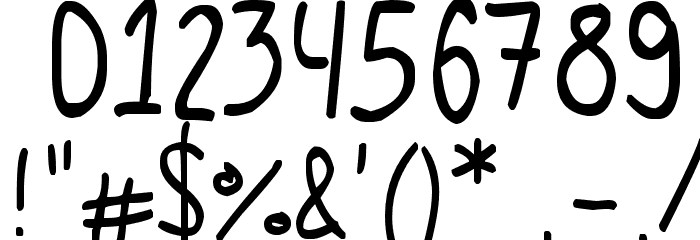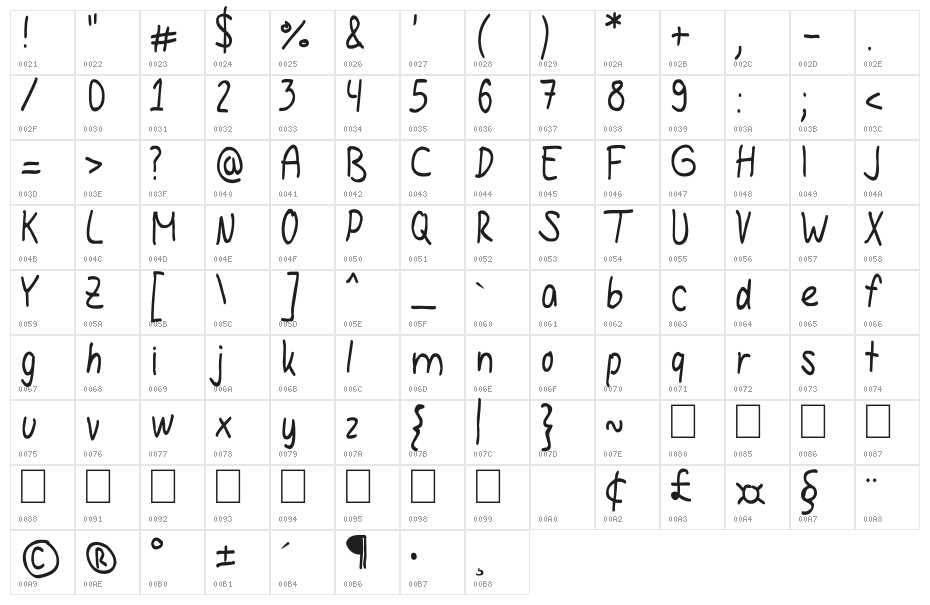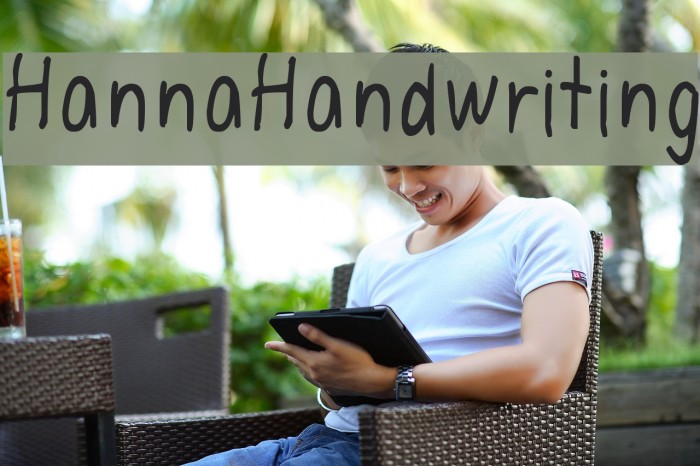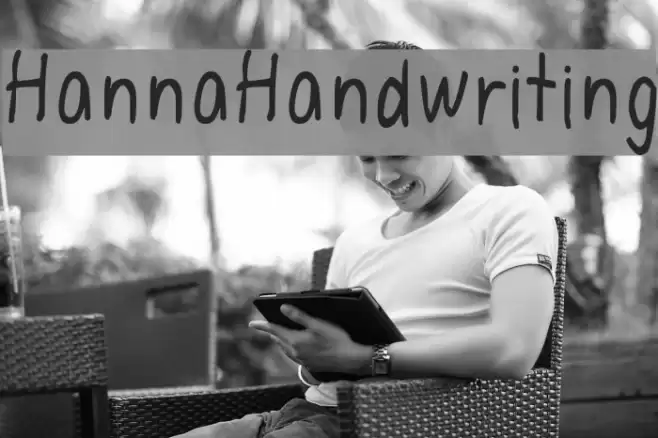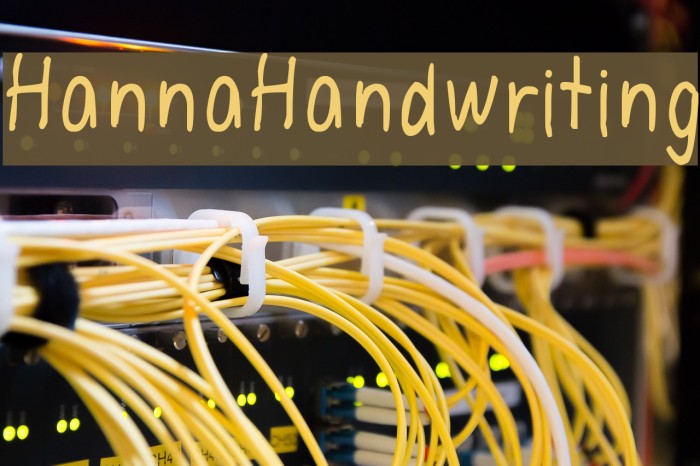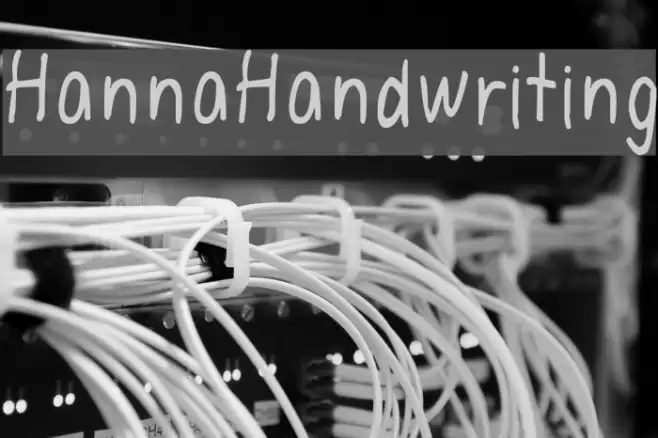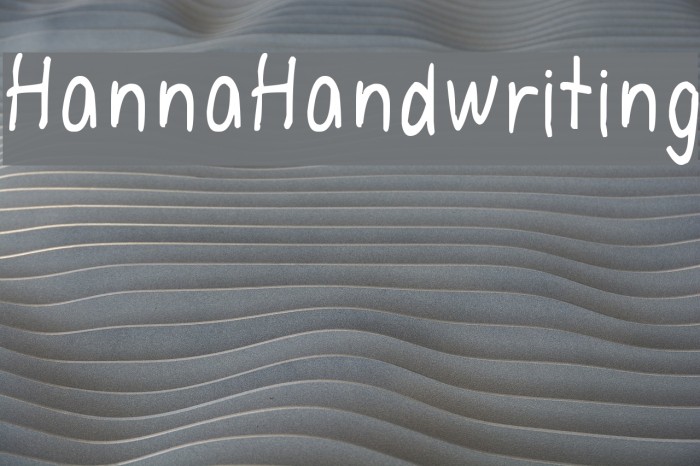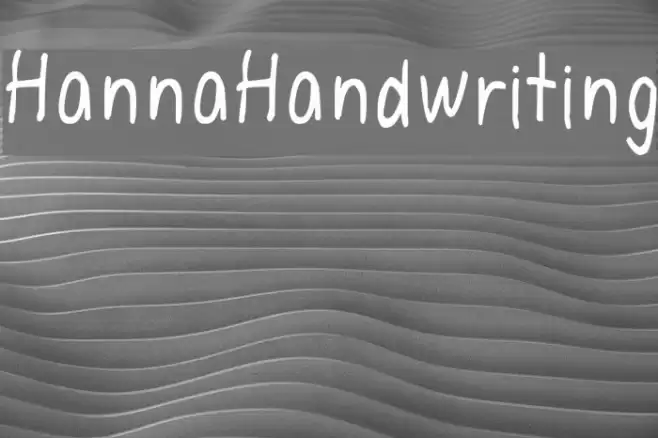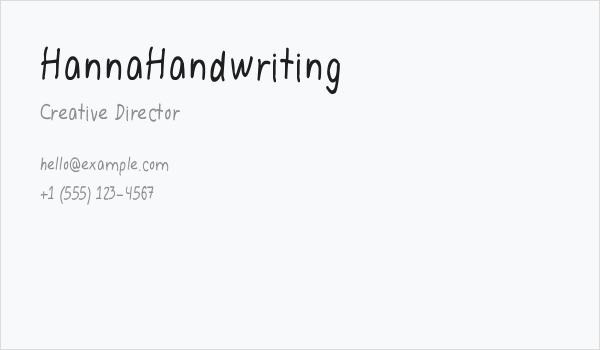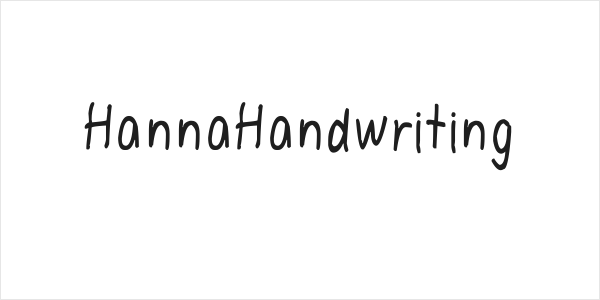
HannaHandwriting Font
HannaHandwriting Description
This font features a playful and casual handwritten style, characterized by its smooth, flowing lines and slightly irregular shapes that mimic natural handwriting. The uppercase and lowercase letters are well-balanced, with a consistent stroke width that gives a uniform appearance. The numerals and special characters maintain the same informal aesthetic, making the font versatile for various creative applications. Its legibility is enhanced by the clear distinction between each character, while the overall design exudes a friendly and approachable vibe.